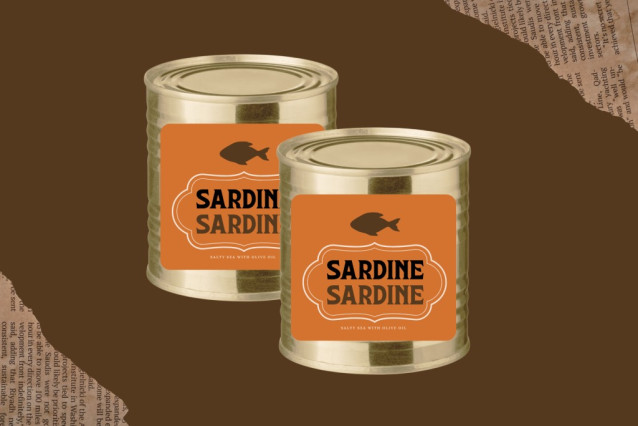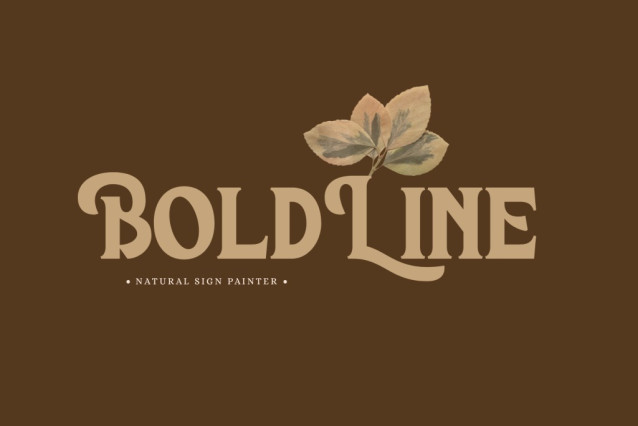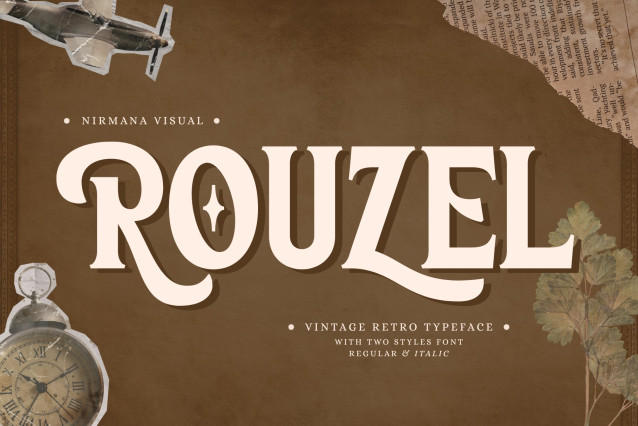
Rouzel Font
Rouzel Vintage Retro Font is a charming serif display typeface that captures a timeless, nostalgic feel. Featuring both Regular and Italic styles, Rouzel blends classic elegance with bold personality, making it perfect for logos, posters, branding, and editorial designs. Its refined serifs and subtle vintage flair add character and sophistication to any project, offering a beautiful balance between tradition and creativity.